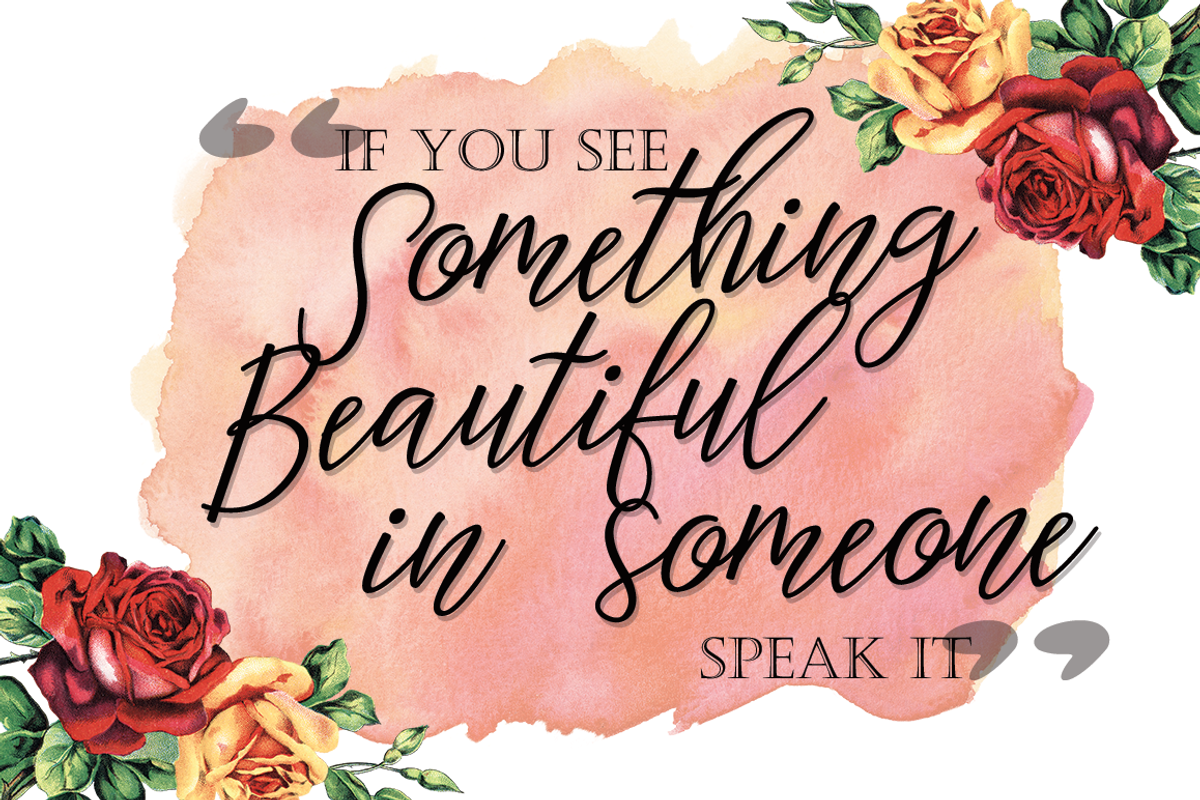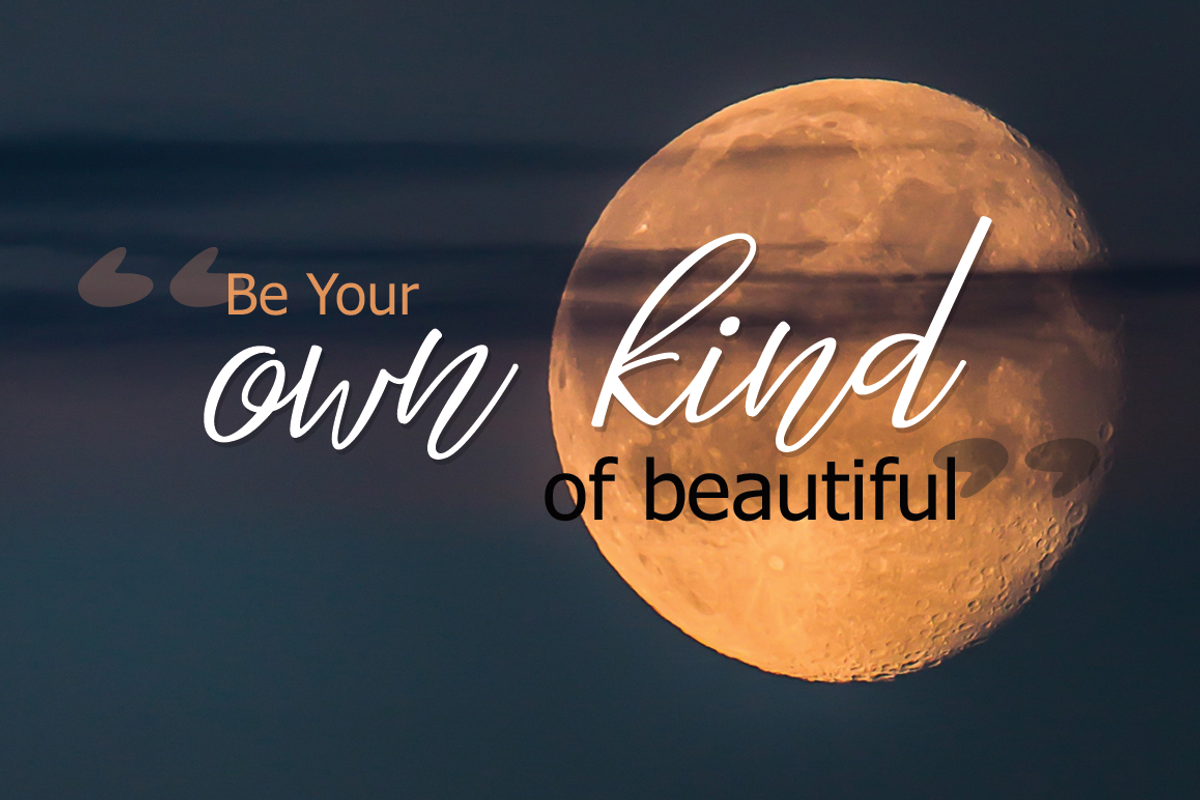
Magister Typeface
Magister Typeface by Face Lab is a font selected for branding, posters, packaging, typography.
- In precise would look great on, branding projects, logos, product packaging, posters, invitations, greeting cards, titles, blogs, everything
- ;) Magister Script calligraphy script comes with upper and lowercase characters, punctuation glyphs, numerals and a TTF of web font.
- So that all the alternate characters can easily be accessed in full by a craftsman or designer.
Why Magister Typeface is worth a look
Magister Typeface by Face Lab fits naturally into Branding, posters, packaging, typography.